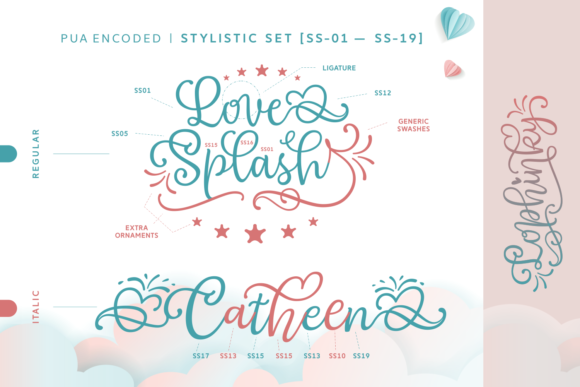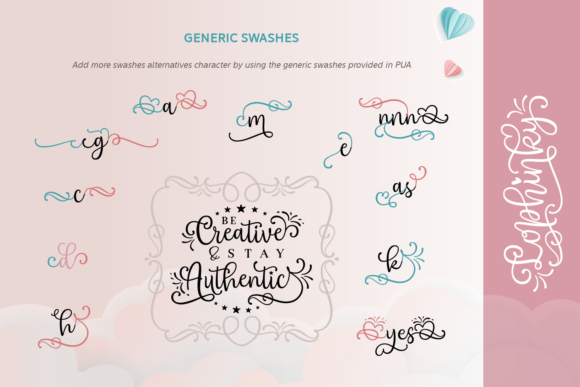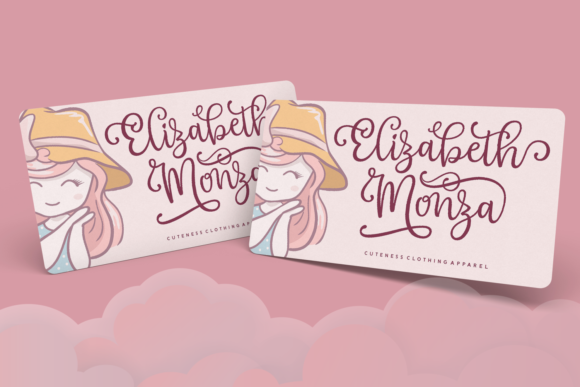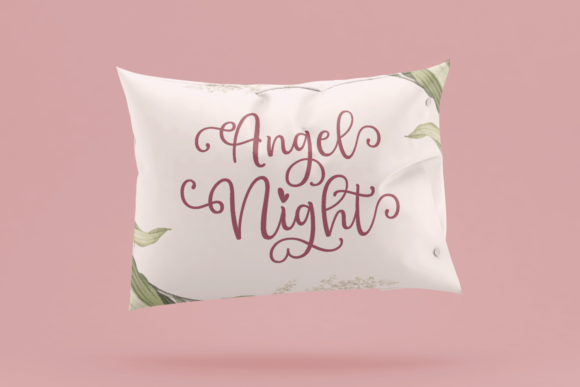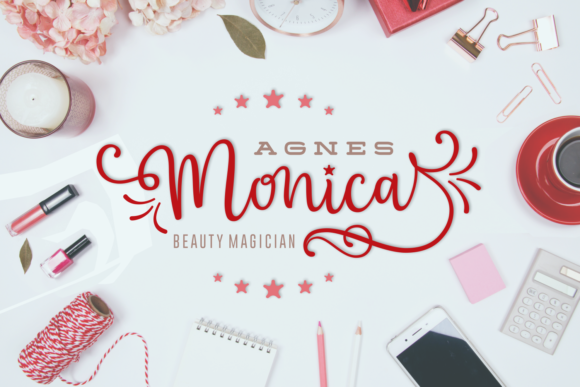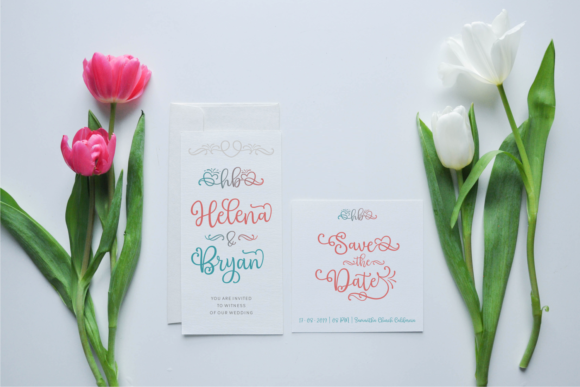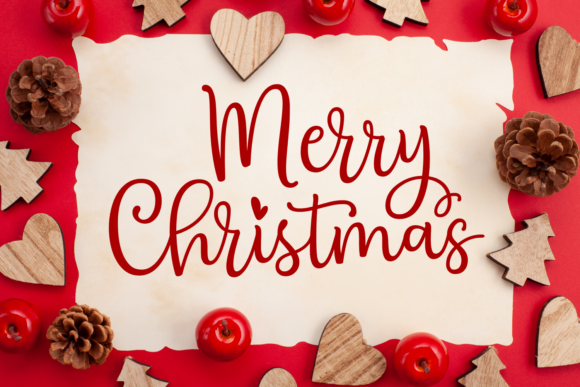
Lophinky Font
About Lophinky Font
Lophinky is a quirky handwritten script font featuring playful flourishes. Great for a variety of creative projects!